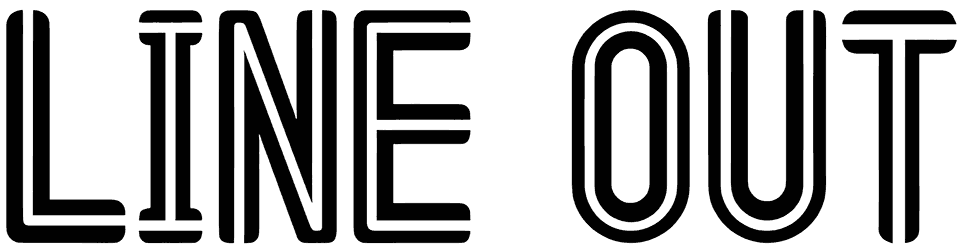
Line Out Font
As long as you want to capture more attention but keep your words modern and minimal, using an inline font such as this one will be cool. Line Out font is going to give a salient but still humble vibe to your letters. There is no suggestion for lowercase letters and punctuation marks, but this double-line font can satisfy you with its unique visual.